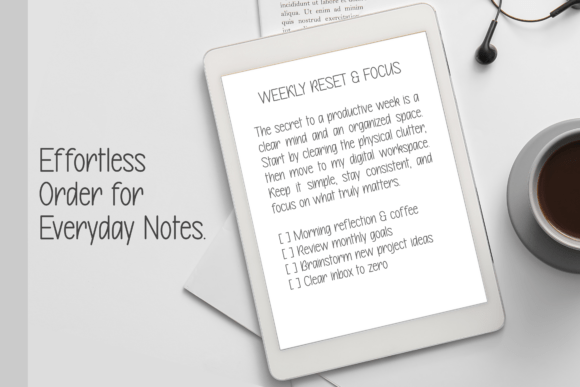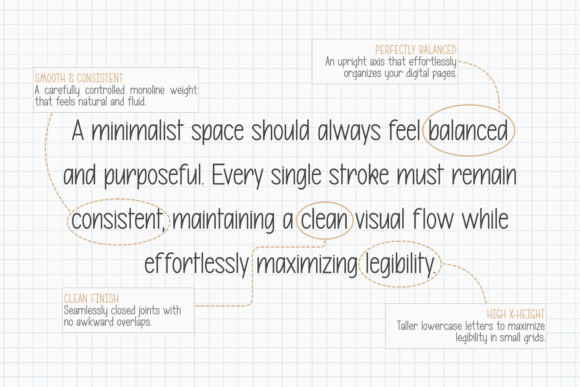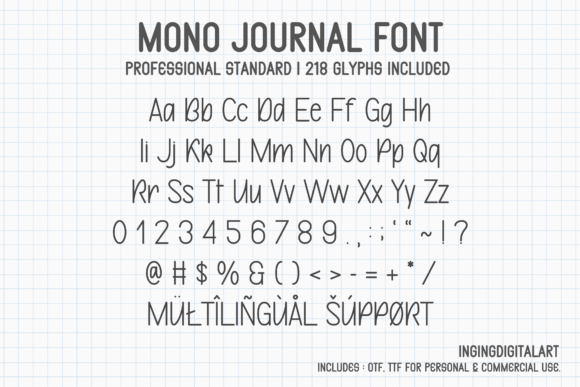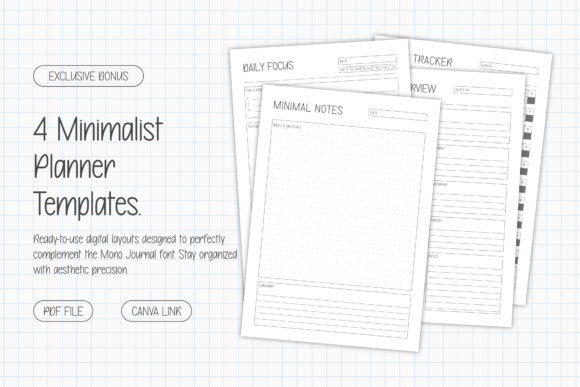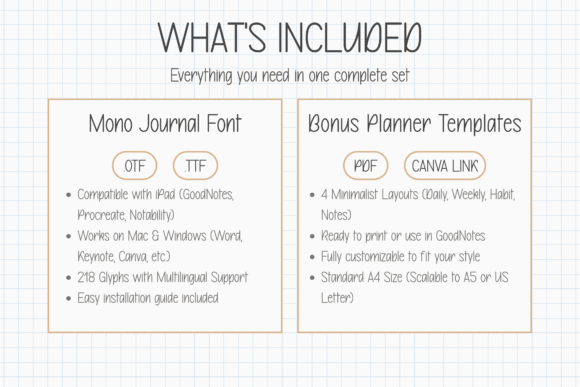
Introduction to Mono Journal Font
Have you ever been working on a creative project and suddenly, the perfect font just eludes you? The words flow effortlessly on the page, but the font just doesn’t quite capture the essence of your design. That’s where the Mono Journal Font comes in – a beautifully precise handwriting font designed to bring order to your digital workspace.
As a designer, you understand the importance of a high-quality design resource that elevates your work. The Mono Journal Font is that perfect addition to your toolkit, offering a carefully controlled monoline aesthetic that feels both natural and purposeful. With its transparent background and high x-height, this font is perfect for organizing your daily schedule, drafting minimalist designs, or taking structured notes on your iPad.
Key Features of Mono Journal Font
- High-quality design resource for creative projects, offering a unique aesthetic for digital and print media.
- Includes a range of font styles, including regular, italic, bold, and bold italic, to cater to diverse design needs.
- Features a clean and modern design, ideal for use in editorial, publishing, and creative projects.
Honest Review: Mono Journal Font
I recently had the chance to work with the Mono Journal Font, and I must say it’s been a great addition to my design resources. This free download has really helped me elevate my creative projects.
- High-quality typography: The font is crisp and clean, making it perfect for a variety of design projects.
- Transparent background: This allows for easy customization and layering, which is a must-have for any designer.
- Simple and elegant design: The font’s minimalistic style makes it easy to read and understand, even for complex content.
- ⚠️ Limited font styles: While the font is beautiful, it’s limited to a single style, which may not be suitable for projects that require a lot of variation.
- ⚠️ Not ideal for bold typography: The font’s design makes it difficult to use for bold or large text, which can be a limitation for some projects.
Overall, I’m really impressed with the Mono Journal Font. Its high quality and transparent background make it a great resource for any designer, and its simple design makes it easy to use. While it may have some limitations, I think it’s definitely worth adding to your design resources.
Mono Journal Font
The Mono Journal Font is a versatile design resource ideal for creative projects that require a clean, modern aesthetic. This high-quality font features a transparent background, making it easy to customize and integrate into various design elements.
Tips for Getting the Most Out of Mono Journal Font
For optimal results, use the Mono Journal Font in conjunction with a solid background or a subtle texture. Experiment with different font sizes and colors to create visual interest.
The Mono Journal Font is perfect for:
- Designing social media graphics and advertisements
- Creating digital invitations and event materials
- Developing branding materials and logos
Lato Font is similar to Mono Journal Font in its clean and minimalistic design, but it has a more modern feel to it. It’s a versatile font that can be used for a wide range of creative projects, from branding and advertising to editorial and digital design.